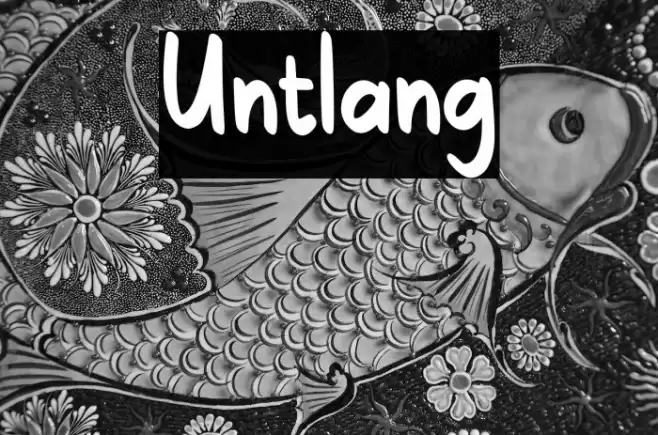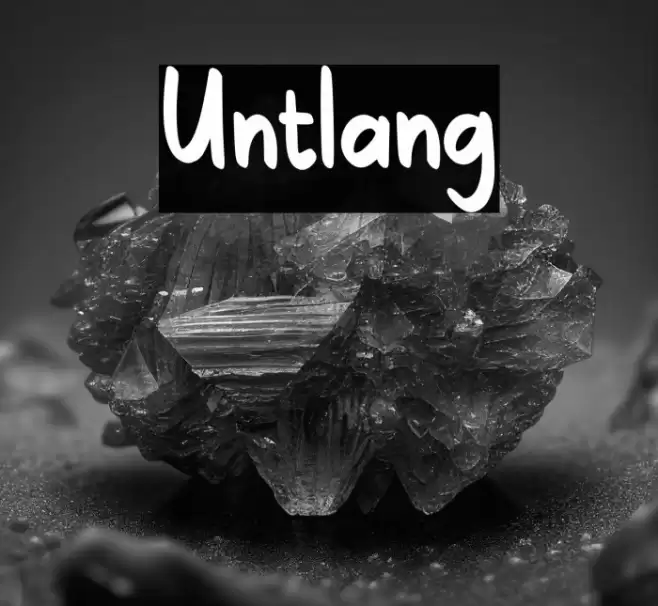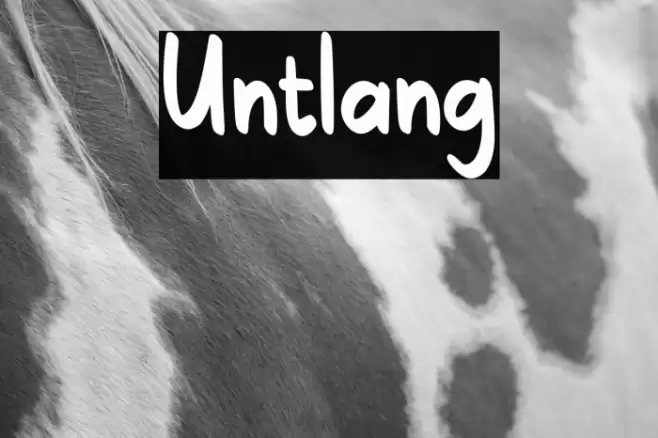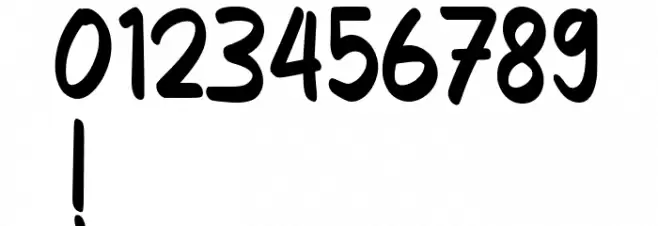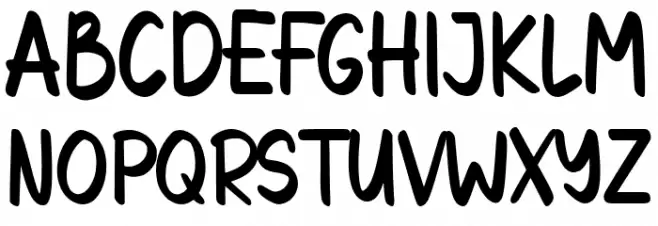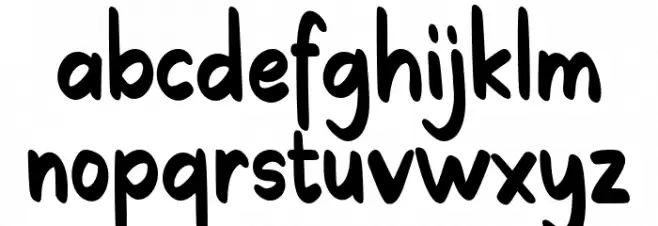
Untlang Font
Untlang Description
This playful and bold font features rounded, thick strokes that give it a friendly and approachable appearance. The characters are slightly irregular, adding a whimsical and hand-drawn feel. The uppercase letters are tall and prominent, while the lowercase letters maintain a consistent height, enhancing readability. Numbers are equally bold and maintain the same playful style. The font includes basic punctuation, which complements the overall design. Its casual and informal style makes it suitable for projects that require a fun and engaging look.
A playful, bold font with rounded, hand-drawn characters from Regular fonts.
- Proposed Projects: Ideal for children's books, playful branding, casual invitations, and social media graphics.
- Overall Style: Casual